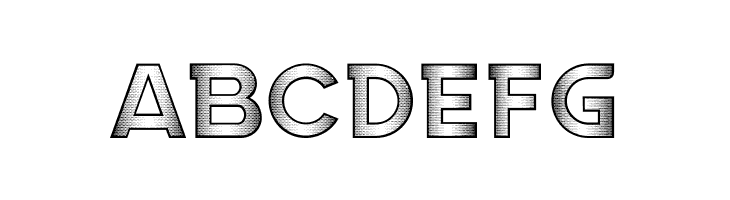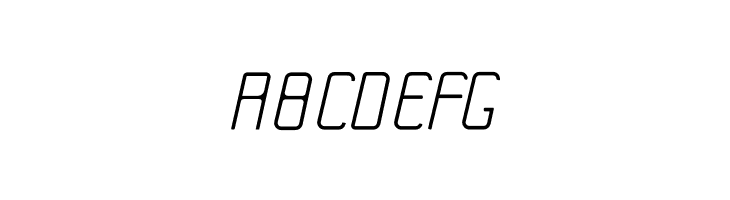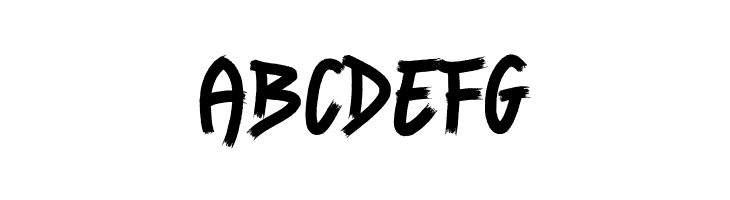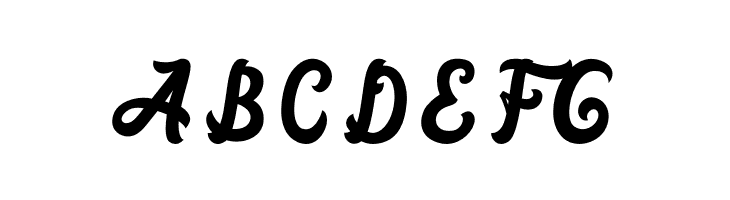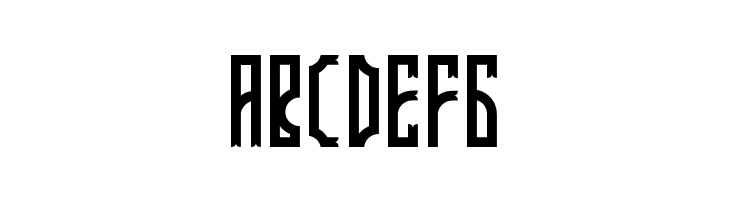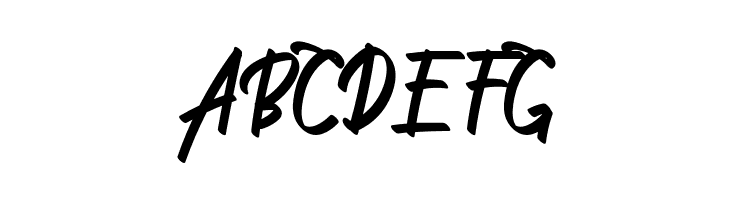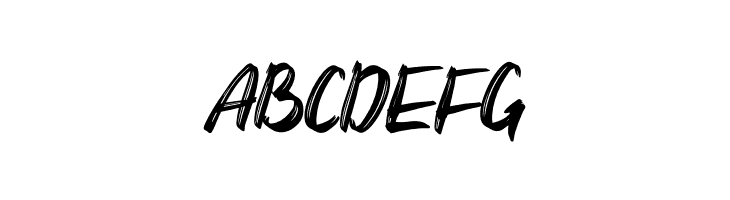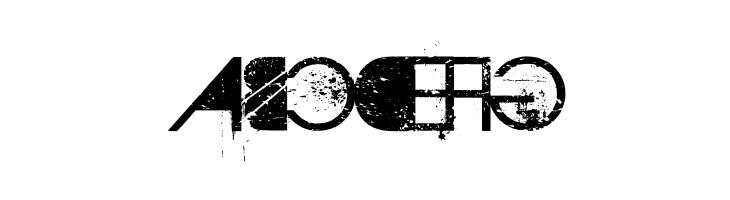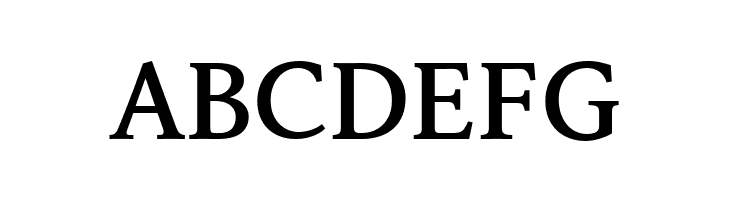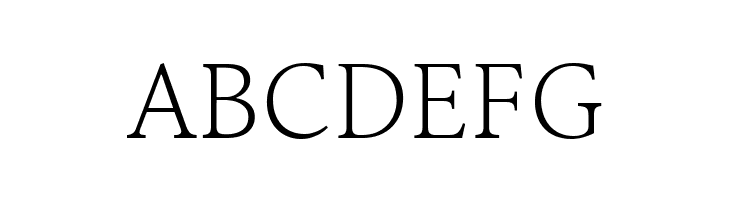
A modern, ultra-light font with geometric shapes and consistent spacing.
A bold, distressed font with a grunge aesthetic and geometric shapes.
A bold serif font with strong strokes and classic design.
A refined serif font with a light weight and elegant design.
A classic serif font with elegant strokes and balanced proportions.
A classic serif font with semi-bold weight and moderate contrast, ideal for professional use.
A bold, modern sans-serif font with geometric structure and excellent readability.
A modern, light sans-serif font with clean lines and excellent readability.
A clean, modern sans-serif font with consistent stroke width and balanced spacing.
A clean, modern sans-serif font with a semi-bold weight and excellent legibility.
A modern, thin sans-serif font with clean lines and elegant proportions.
Festive sans-serif font with snowflake decorations for holiday themes.
A bold slab serif font with strong, block-like serifs and high contrast, ideal for headlines.
A bold, dynamic brush script font with flowing, hand-drawn strokes.
A bold, brush-style font with dynamic, hand-painted strokes.
A bold, textured font with a unique horizontal line design.
A bold, handwritten font with dynamic and energetic strokes.
A bold, brush-stroke font with a distressed, hand-painted texture.
A bold, angular font with a modern, geometric style.
A geometric, angular font with a modern and technical style.
A modern, geometric font with thin lines and generous spacing.
A bold, playful font with decorative serifs and a whimsical style.
A flowing, cursive script font with elegant, interconnected characters.
A bold, cursive script font with flowing, connected letterforms.
A bold, angular serif font with a modern twist.
A playful, quirky handwritten font with an artistic flair.
A modern, geometric font with a sleek, futuristic design.
A modern, bold sans-serif font with a geometric and clean design.
A bold, modern font with clean, geometric lines and balanced proportions.
A tall, narrow serif font with a blend of classic and modern elements.
A playful and elegant script font with smooth, flowing lines and a handwritten appearance.